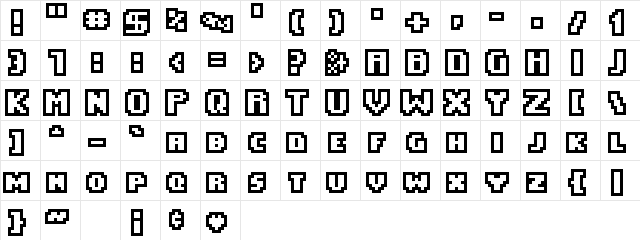
EaseOfUseOutline Medium
Design Context for EaseOfUseOutline Typeface
EaseOfUseOutline brings ornamental detail and strong personality to headlines and identities, where visual impact matters more than quiet functionality.
Font Pairing: Pair with a clean neutral sans-serif for body copy to let EaseOfUseOutline's character lead without overwhelming the composition.
Pro Tip: Treat EaseOfUseOutline as the centrepiece of your typographic hierarchy. One strong heading set in a decorative face can carry an entire layout.